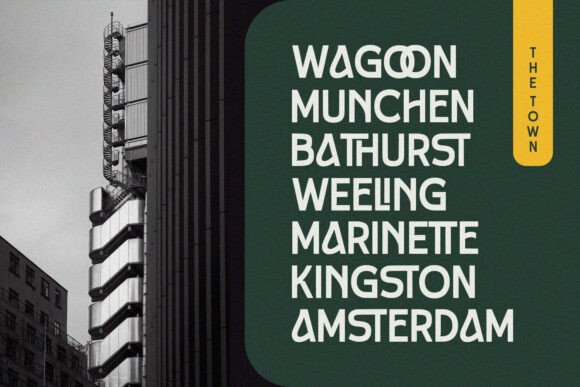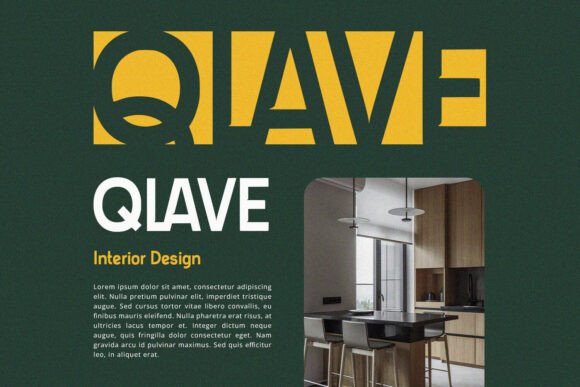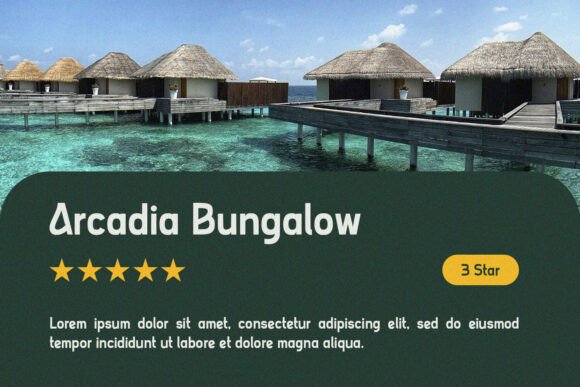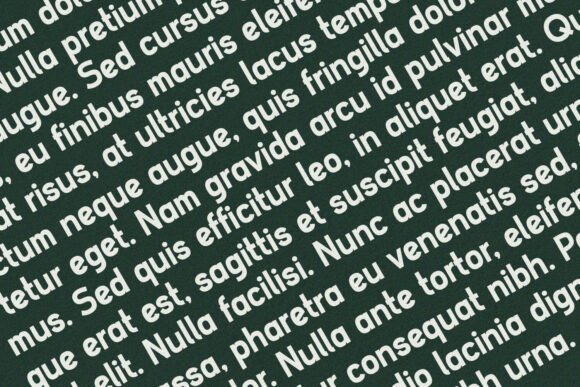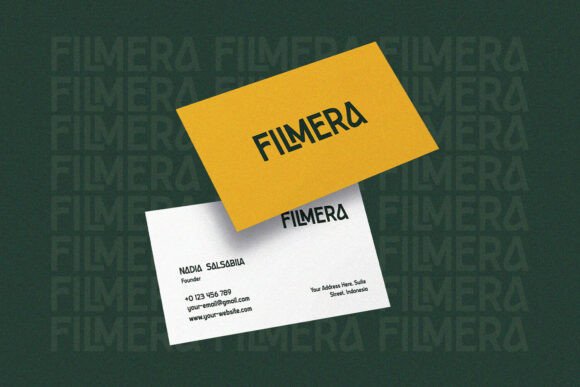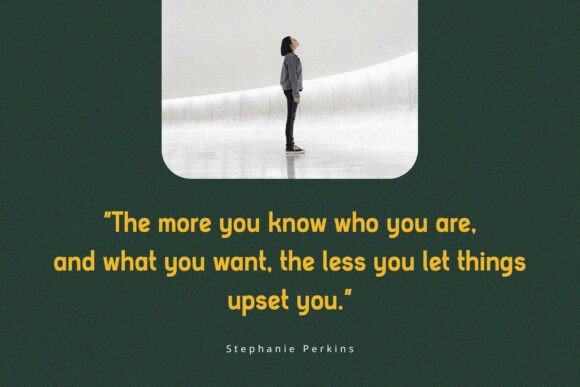
Introducing Beatbox Font: Elevate Your Designs with Elegance and Modernity
In the world of design, typography plays a crucial role in conveying messages, evoking emotions, and creating visual identities. For designers and crafters seeking a font that embodies both elegance and modernity, Beatbox Font is an exceptional choice. This display sans serif font is meticulously crafted to bring a touch of sophistication to a wide array of design projects, including magazines, packaging, posters, shopping bags, t-shirts, book covers, photography, special events, and more.
What is Beatbox Font?
Beatbox Font is a display sans serif font that stands out for its clean lines, elegant curves, and modern aesthetic. Its sans serif design ensures a sleek and contemporary look, making it versatile for various applications. Whether you’re working on a high-end fashion magazine, a stylish packaging design, or a compelling poster, Beatbox Font is engineered to enhance your creative output with its distinctive charm.
Key Features of Beatbox Font
- Elegant and Modern Feels: The font’s design is centered around providing an elegant and modern feel, making it perfect for designers who aim to give their projects a sophisticated edge.
- Versatility: Beatbox Font’s versatility is one of its strongest assets. It can be used across a multitude of design projects, from digital media to print, without losing its impact or elegance.
- Readability: Despite its elegant and modern design, Beatbox Font does not compromise on readability. It is clear and legible, ensuring that your message is conveyed effectively to your audience.
- Customization: The font allows for a degree of customization, enabling designers to adapt it to their specific needs and preferences.
Use Cases for Beatbox Font
Beatbox Font’s adaptability makes it suitable for a wide range of applications. Here are some of the ideal use cases:
- Magazines and Editorials: Add a touch of elegance to your fashion, lifestyle, or art editorials with Beatbox Font, making your content stand out.
- Packaging Design: Elevate your brand’s packaging with a modern and sophisticated look that captures the essence of your product.
- Posters and Flyers: Create eye-catching posters and flyers for events, promotions, or informational purposes that demand attention.
- Merchandise: Design stylish t-shirts, shopping bags, and other merchandise that reflect your brand’s personality and aesthetic.
- Book Covers: Give your book a professional and appealing look with Beatbox Font, perfect for both fiction and non-fiction titles.
- Photography: Use Beatbox Font in your photography projects to add captions, titles, or quotes with an elegant touch.
- Special Events: Create invitations, programs, or promotional materials for weddings, galas, or corporate events with a sophisticated flair.
Why Choose Beatbox Font?
In a sea of fonts, Beatbox Font stands out for its unique blend of elegance and modernity. Here are a few reasons why designers and crafters are gravitating towards it:
- Unique Aesthetic: Beatbox Font offers a distinctive look that can set your designs apart from the crowd.
- High Versatility: Its adaptability across various design projects makes it a valuable addition to any designer’s toolkit.
- Professionalism: The font exudes professionalism, making it suitable for projects that demand a high standard of design.
Beatbox Font is more than just a typeface; it’s a design statement. Its elegant and modern feels make it an excellent choice for designers and crafters looking to elevate their projects. With its versatility, readability, and customization possibilities, Beatbox Font is poised to become a go-to font for a wide range of applications. Whether you’re working on a commercial project or a personal endeavor, incorporating Beatbox Font can help you achieve a sophisticated and contemporary look that resonates with your audience.
Discover the potential of Beatbox Font in your designs and experience the difference it can make in conveying your message with style and sophistication.